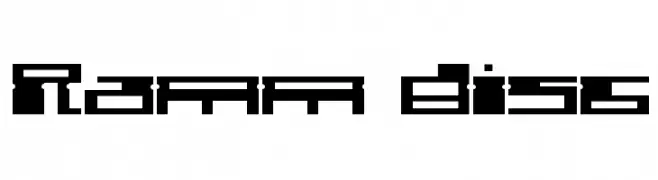
A futuristic, geometric font with sharp angles and a bold, tech-inspired design.
A bold, angular font with a futuristic, sci-fi aesthetic.
A bold, geometric font with a futuristic and tech-inspired design.